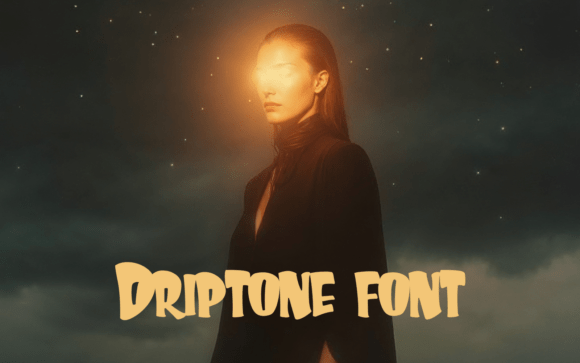
Introducing Driptone Font: The Ultimate Typeface for Creators on the Move
In the world of typography, fonts are more than just a means of communication – they’re an expression of style, attitude, and creativity. For creators, artists, and designers, the right font can elevate their work from ordinary to extraordinary. This is where Driptone Font comes in – a revolutionary typeface that embodies the spirit of the streets, the rhythm of music, and the boldness of digital culture.
Unleashing the Power of Driptone
Turn the volume up with Driptone – a typeface that exudes confidence, energy, and a dash of rebelliousness. Born on the coast and built to break the feed, Driptone is more than just a font – it’s a statement. Its slick curves, bold presence, and digital drip make it the perfect choice for creators who want to make a lasting impression.
From merch drops to mixtape covers, Driptone is the font that flexes hard. Its versatility and adaptability make it an ideal choice for various design projects, including branding, advertising, and marketing materials. Whether you’re a graphic designer, artist, or musician, Driptone is the perfect companion for your creative journey.
The Inspiration Behind Driptone
Driptone’s design is rooted in the streets, with a soul that’s deeply connected to urban culture. The font’s creator drew inspiration from the city’s vibrant streets, where music, art, and self-expression thrive. The result is a typeface that’s raw, edgy, and unapologetic – a true reflection of the digital age we live in.
The font’s name, Driptone, is a nod to the digital drip that’s become an integral part of modern design. It’s a term that refers to the smooth, fluid lines and curves that have become synonymous with digital art. With Driptone, the digital drip is more than just a aesthetic – it’s a way of life.
The Features of Driptone
So, what makes Driptone so special? Here are some of its key features:
- Slick Curves: Driptone’s curves are smooth, fluid, and effortlessly cool. They’re the perfect blend of style and sophistication.
- Bold Presence: Driptone is a font that demands attention. Its bold lines and curves make it impossible to ignore.
- Digital Drip: Driptone’s digital drip is what sets it apart from other fonts. It’s a unique feature that gives the font a modern, edgy feel.
- Versatility: Driptone is a versatile font that can be used for a wide range of design projects, from branding and advertising to music and art.
Where Attitude Meets Aesthetic
Driptone is more than just a font – it’s an attitude. It’s a way of expressing yourself, your style, and your creativity. With Driptone, you can add a touch of edginess to your designs, making them stand out in a crowded digital landscape.
The font’s unique blend of style and substance makes it perfect for creators who want to push the boundaries of design. Whether you’re working on a personal project or a client’s brief, Driptone is the perfect choice for those who want to make a statement.
Using Driptone for Your Design Projects
So, how can you use Driptone for your design projects? Here are some ideas to get you started:
- Merch Drops: Use Driptone to create eye-catching merchandise, such as t-shirts, hats, and posters.
- Mixtape Covers: Add a touch of style to your mixtape covers with Driptone’s bold, edgy lines.
- Branding and Advertising: Use Driptone to create bold, attention-grabbing branding and advertising materials.
- Music and Art: Driptone is the perfect choice for musicians, artists, and designers who want to add a touch of style to their work.
In conclusion, Driptone Font is a revolutionary typeface that’s born on the coast and built to break the feed. Its unique blend of style, attitude, and creativity makes it the perfect choice for creators who want to make a lasting impression.
With its slick curves, bold presence, and digital drip, Driptone is the ultimate font for those who want to turn the volume up on their designs. Whether you’re a graphic designer, artist, or musician, Driptone is the perfect companion for your creative journey.
Here are some frequently asked questions about Driptone Font:
- What is Driptone Font? Driptone Font is a revolutionary typeface that’s born on the coast and built to break the feed.
- What makes Driptone unique? Driptone’s unique blend of slick curves, bold presence, and digital drip makes it stand out from other fonts.